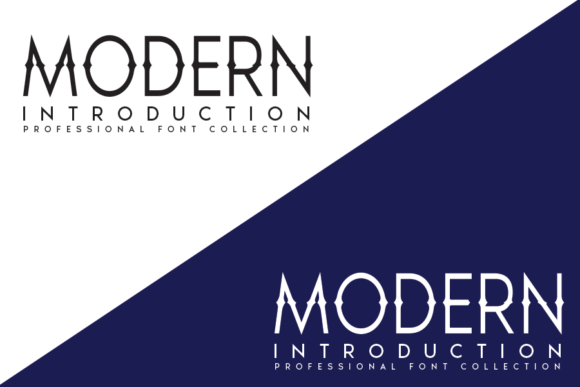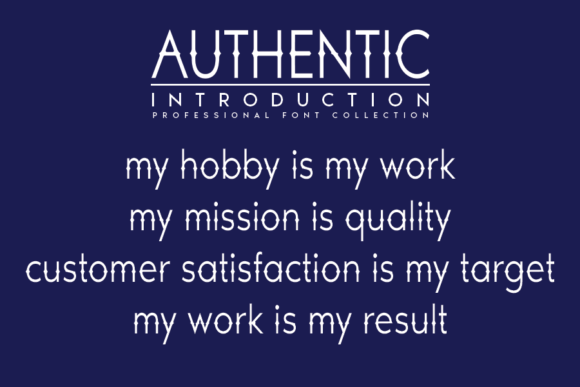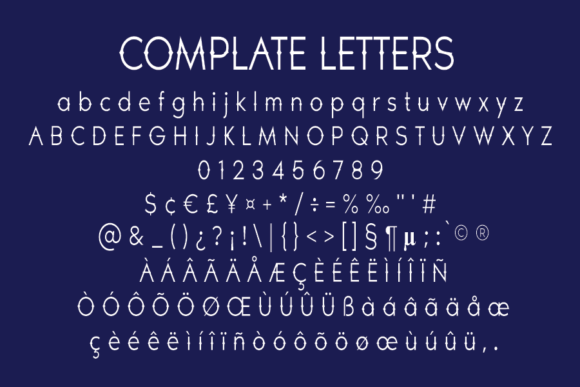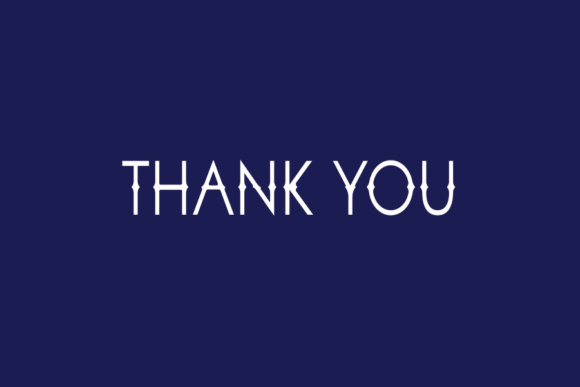
Discover the Power of Authentic Font: Elevate Your Designs with a Modern Sans Serif Style
In the world of typography, fonts play a crucial role in conveying messages, evoking emotions, and creating a lasting impression. For designers, crafters, and creative enthusiasts, finding the right font can make all the difference in bringing their ideas to life. This is where Authentic Font comes in – a modern, neat, and distinct sans serif font that can elevate your designs and make them stand out.
What is Authentic Font?
Authentic Font is a carefully crafted sans serif font that exudes a sense of modernity and sophistication. Its clean lines, precise curves, and balanced proportions make it an excellent choice for a wide range of projects, from digital designs to print materials. Whether you’re working on a logo, brochure, website, or social media graphics, Authentic Font can help you create a visually appealing and cohesive look.
Key Features of Authentic Font
- Modern and Neat Design: Authentic Font boasts a sleek and contemporary design that will give your projects a fresh and updated look.
- Distinct Sans Serif Style: The font’s sans serif style ensures that your text remains clear and legible, even at smaller font sizes.
- High Versatility: Authentic Font can be used in a variety of contexts, including headings, body text, and even titles.
- Easy to Read: The font’s carefully designed letterforms ensure that your text is easy to read, making it perfect for both digital and print materials.
Why Choose Authentic Font?
With so many fonts available, why should you choose Authentic Font for your projects? Here are a few compelling reasons:
- Uniqueness: Authentic Font offers a distinct and modern style that will set your designs apart from the crowd.
- Flexibility: The font’s versatility ensures that it can be used in a wide range of projects, from minimalist designs to more complex compositions.
- Legibility: Authentic Font’s clear and readable design makes it perfect for body text, ensuring that your message is conveyed effectively.
- Professionalism: The font’s sleek and modern design gives your projects a professional and polished look.
In conclusion, Authentic Font is a powerful and versatile sans serif font that can elevate your designs and make them stand out. Its modern and neat design, distinct style, and high legibility make it an excellent choice for a wide range of projects. Whether you’re a designer, crafter, or creative enthusiast, Authentic Font is a valuable addition to your typography toolkit.